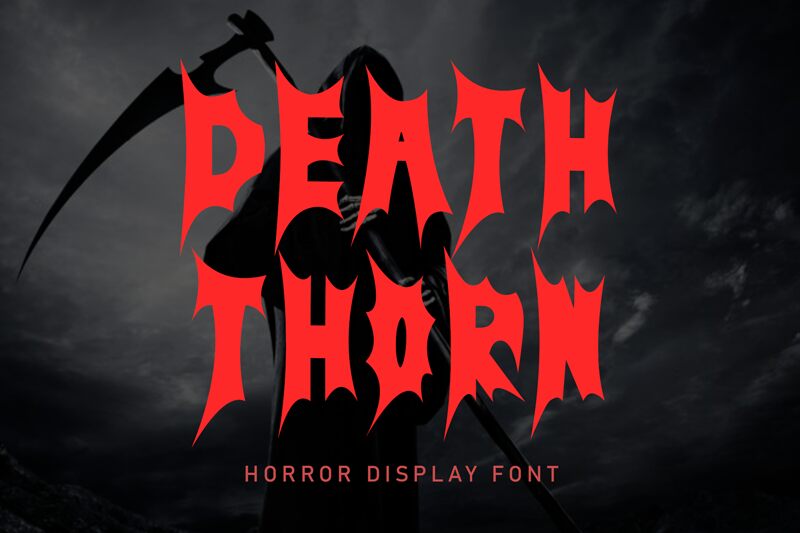
Death Thorn font has a captivating name, and its execution lives up to the given name. Presented by Yoga Letter, this font is an artistic formation of a lot of edgy elements including heavy dark shapes and sharp thin endings. The sense of drama, intensity, and darkness are created by distorting the basic forms that we all know and adding extra irrelevance that brings a unique style to this typeface.
Death Thorn is created with the inspiration of blackletter types and medieval gothic culture. The resulting style is one dark, mysterious, and visually engaging font for exceptional projects. Use it in branding and packaging, typography artwork, logo design, covers, posters, and some social media posts too.